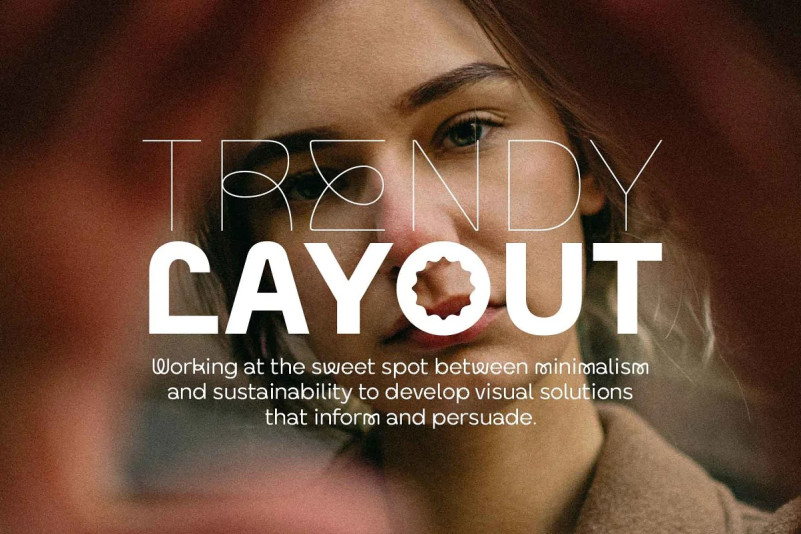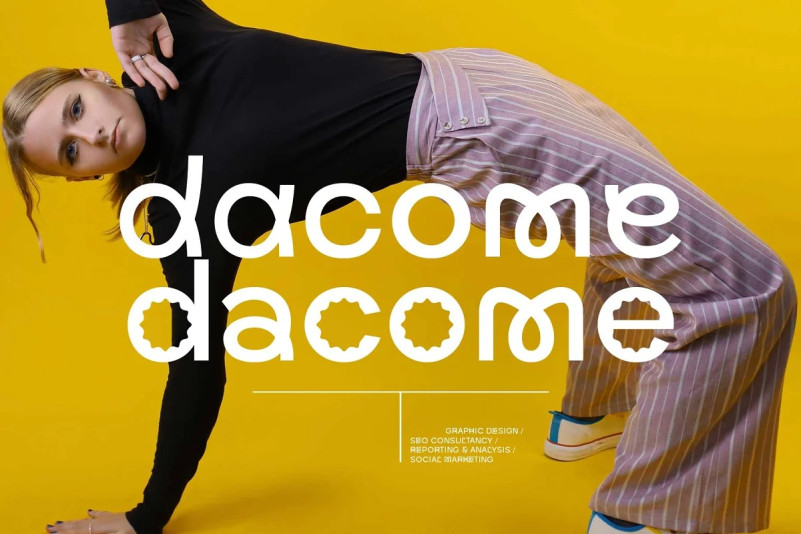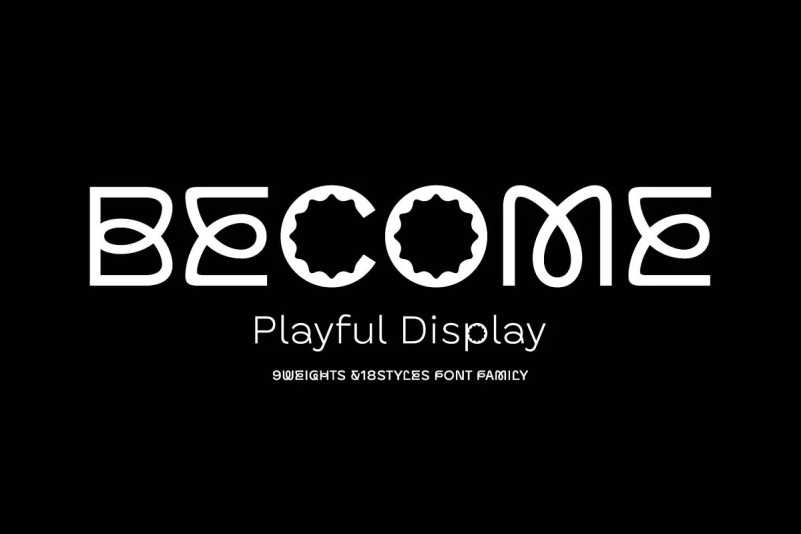
Become Display Font
Become Display Font Family. It tries to display playful ideas in well-balanced styles. Hello, designers. We always seek new innovations, but run into the world of forms and frames, presently. This font family presupposes pleasant imagination and provocation, but controls the change of various styles so as not to lose a sense of balance. B, E, M and W glyphs started from the same skeleton, but the detailed correction work for interpolation transformation was all applied differently. It is designed to be well suited to any layout while providing a unique stimulus. It can be a great display for all ages, from kids to seniors, and covers publishing, web, app and branding design areas.